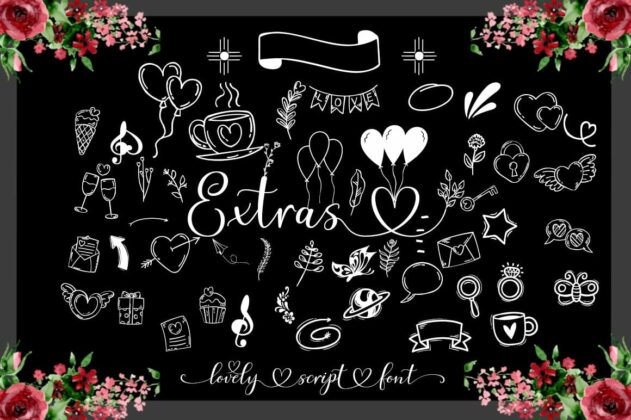
About mitha alisha
Hello everyone, I would like to introduce my newest font Mitha Alisha is a beautiful modern calligraphy typeface, with 3 style options including extras, I hope you are interested in this font, if you want to use it for your work. This font can be used easily and simply because of the many features in it. contains a complete set of lowercase and uppercase letters, a wide variety of punctuation marks, numbers, and multilingual support. This font also contains many ligatures and contains many alternative Style Sets such as alternate strokes to join two words, for example: matea-futan.